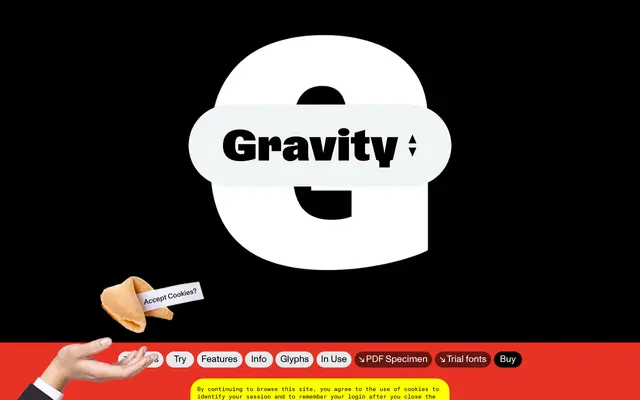
ABC Gravity
A one-weight, twelve-width headline grotesque that runs from XXXX Compressed to Wide, with playful baseline-jumping alternates.
A headline display by Dinamo that takes a single heavy grotesque skeleton from the 1960s and 1970s and stretches it across twelve widths from XXXX Compressed to Wide. All twelve styles can be used separately or packaged as one variable font, modulating seamlessly between extremes. Stylistic alternates let characters jump over the baseline or hang from the top, with square or round punctuation, hairline punctuation, and raised descenders. Built for posters, magazine covers and identity systems where you want loud headlines and tight title arrangements.
Dinamo describes Gravity as a one-weight, twelve-width headline typeface stretched and compressed from heavy 1960s and 1970s grotesques, with stylistic alternates that let characters jump above the baseline or hang from the top.
Optical sizes and widths
XXXX CompressedXX CompressedCompressedExtra CondensedSemiCondensedNormalExtendedExpandedWide